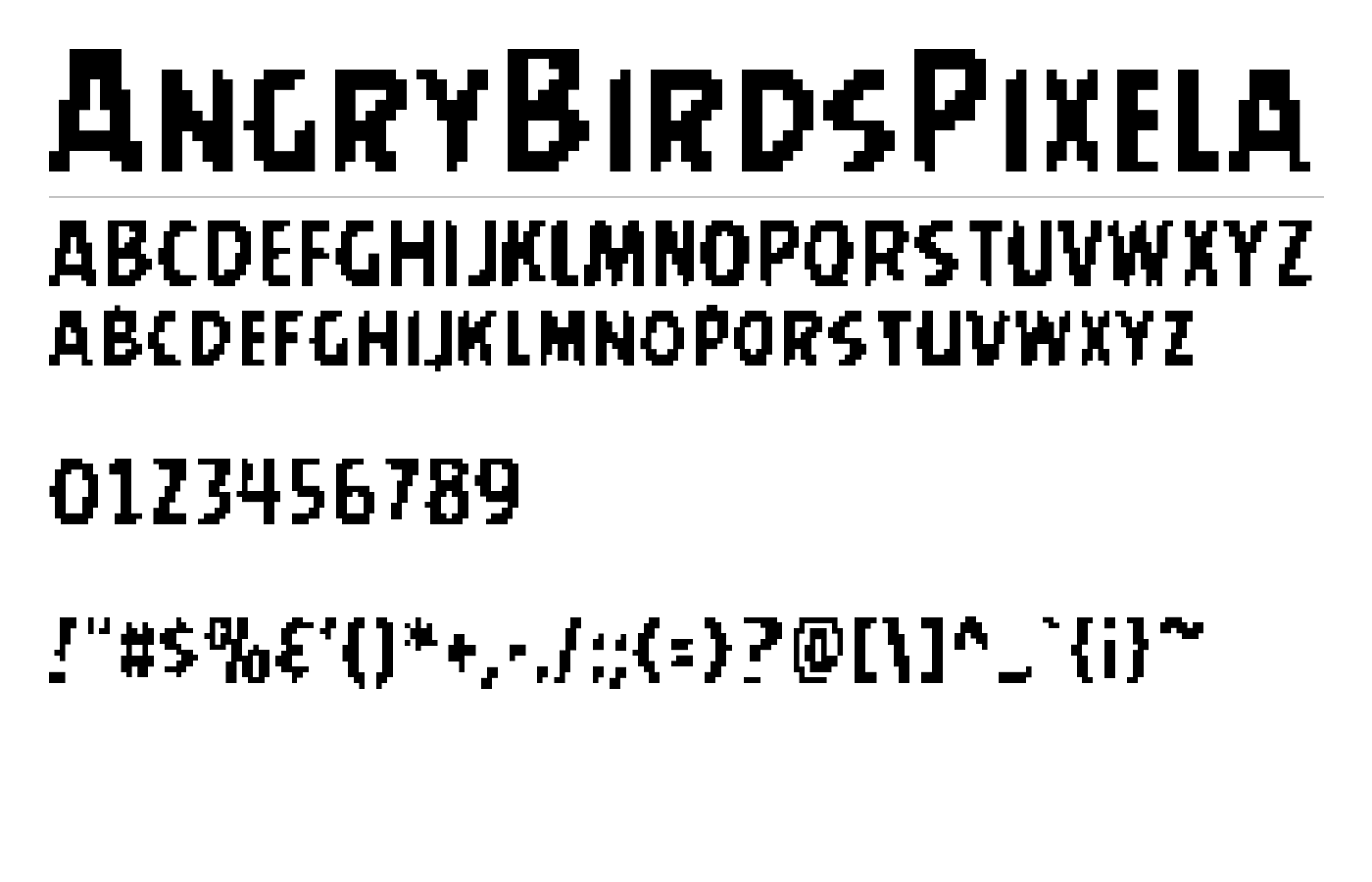
AngryBirdsPixela is a bold, pixel-style sans serif font that captures a retro, digital gaming vibe with its blocky, low-resolution appearance. Its consistent weight and square shapes create a playful yet clear look, making it perfect for video game designs, tech-related projects, or any creative work seeking a fun, nostalgic feel. This font works best in headlines, logos, and playful branding where a distinctive, pixelated aesthetic is desired.
AngryBirdsPixela Font
About AngryBirdsPixela Font